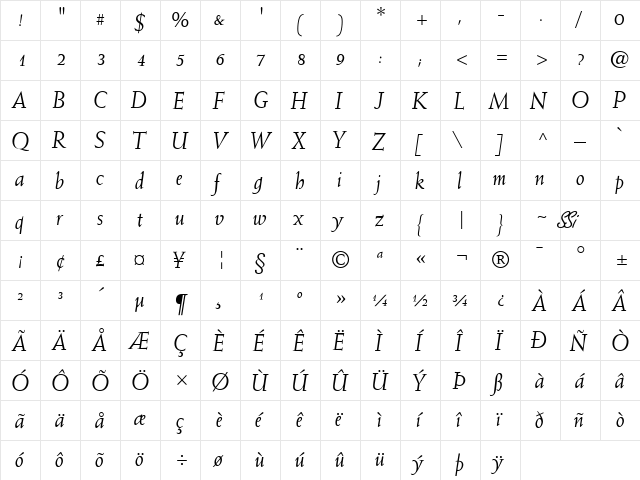
Missive SSi Italic
Design Context for Missive SSi Typeface
Missive SSi is a composed and adaptable typeface that performs quietly and consistently across a wide range of design contexts. Its italic angle brings a sense of urgency and motion to the letterforms.
Pro Tip: Try Missive SSi for annotation and caption copy alongside an upright companion — the contrast in angle creates a dynamic but ordered typographic system.